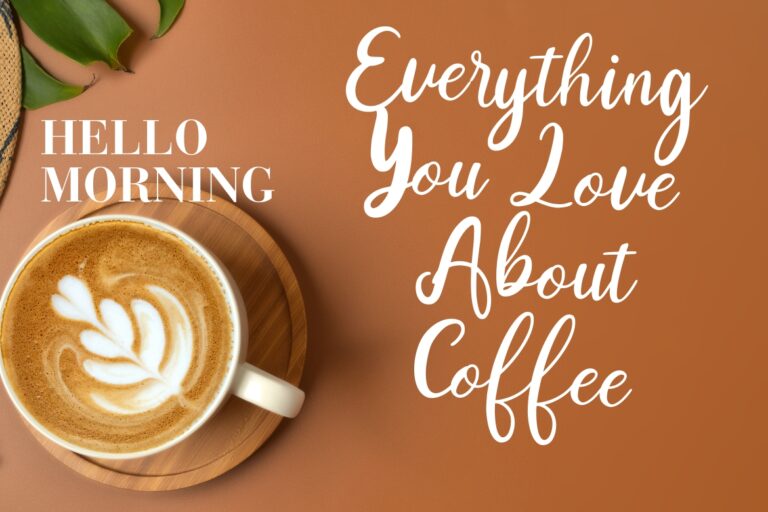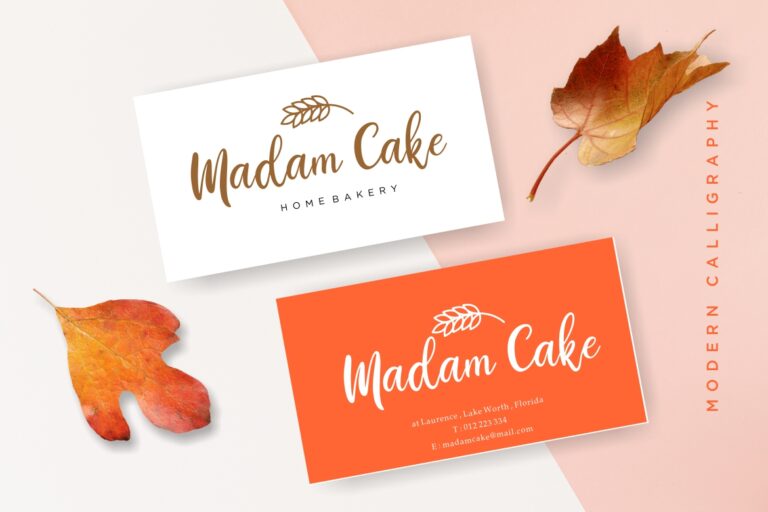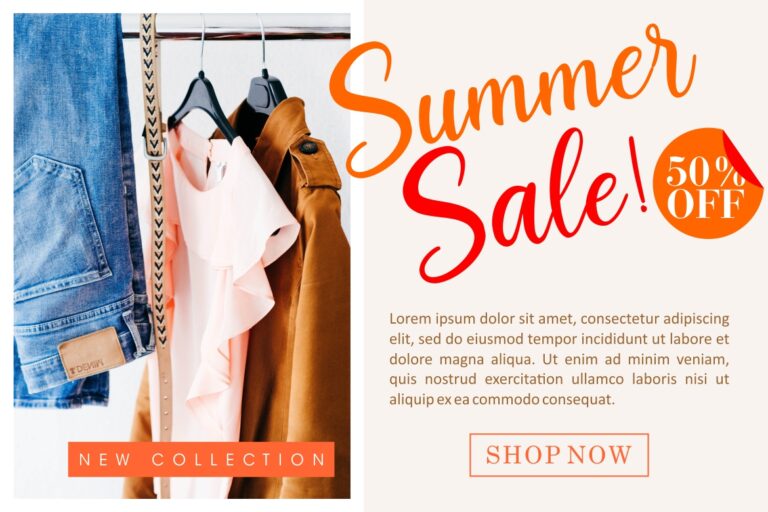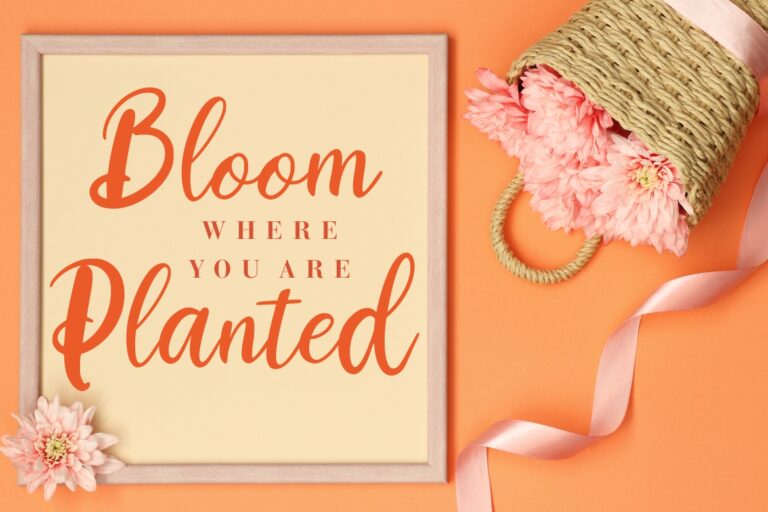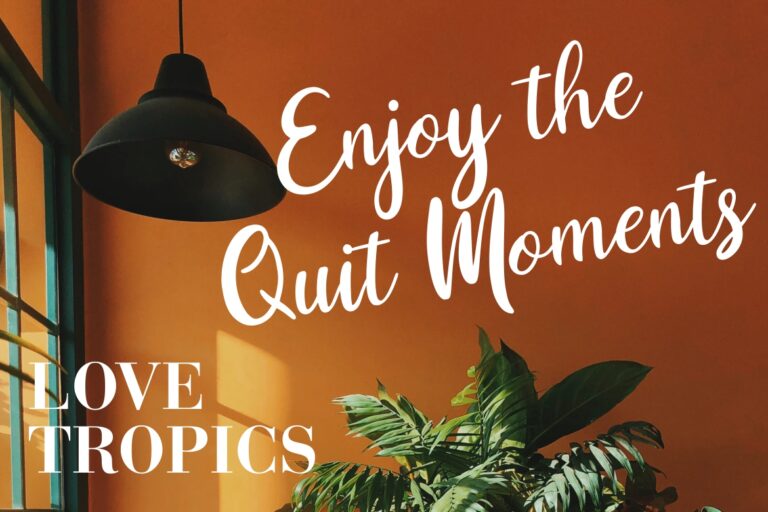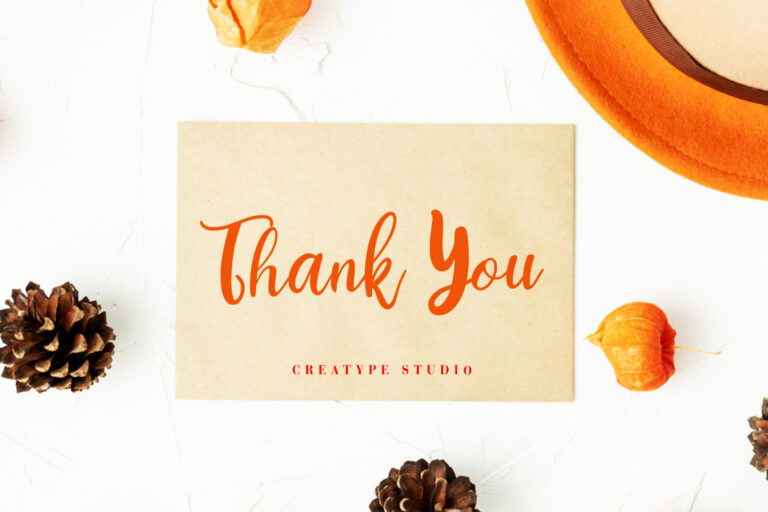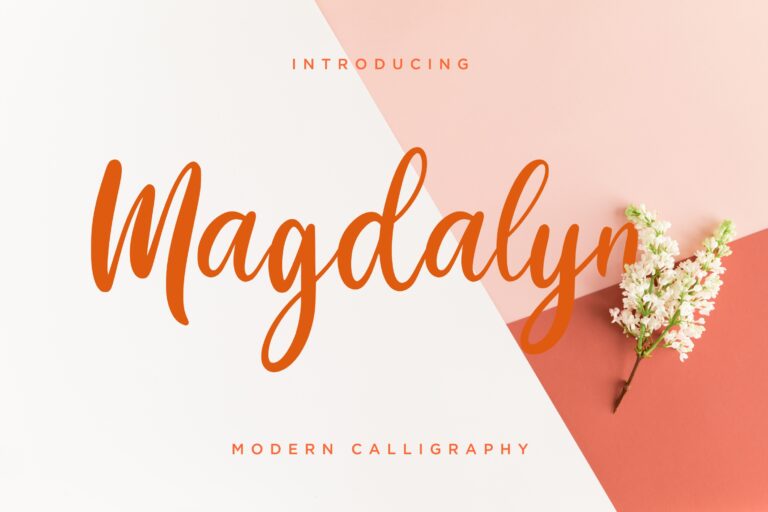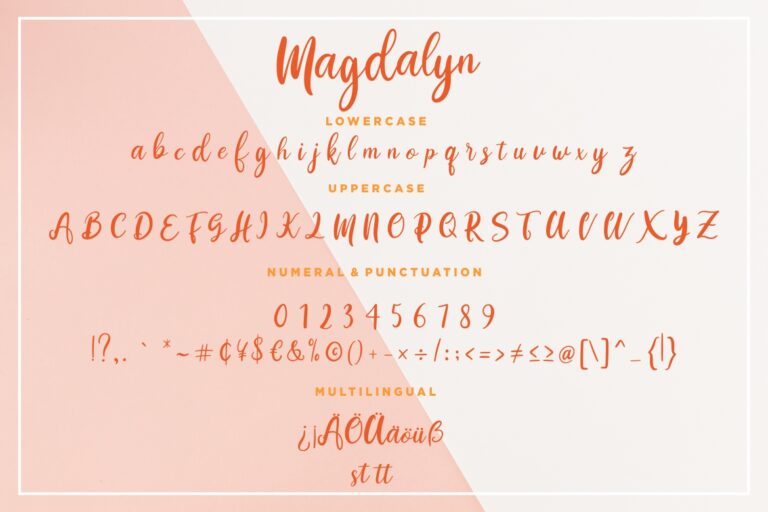
Magdalyn is modern calligraphy font looks elegant which suit for wedding invitation event.
Magdalyn is perfect for branding projects, logo, wedding designs, social media posts, advertisements, product packaging, product designs, label, photography, watermark, invitation, stationery and any projects that need handwriting taste.
• Fonts include multilingual support for; ä ö ü Ä Ö Ü ß ¿ ¡
Magdalyn Modern Calligraphy